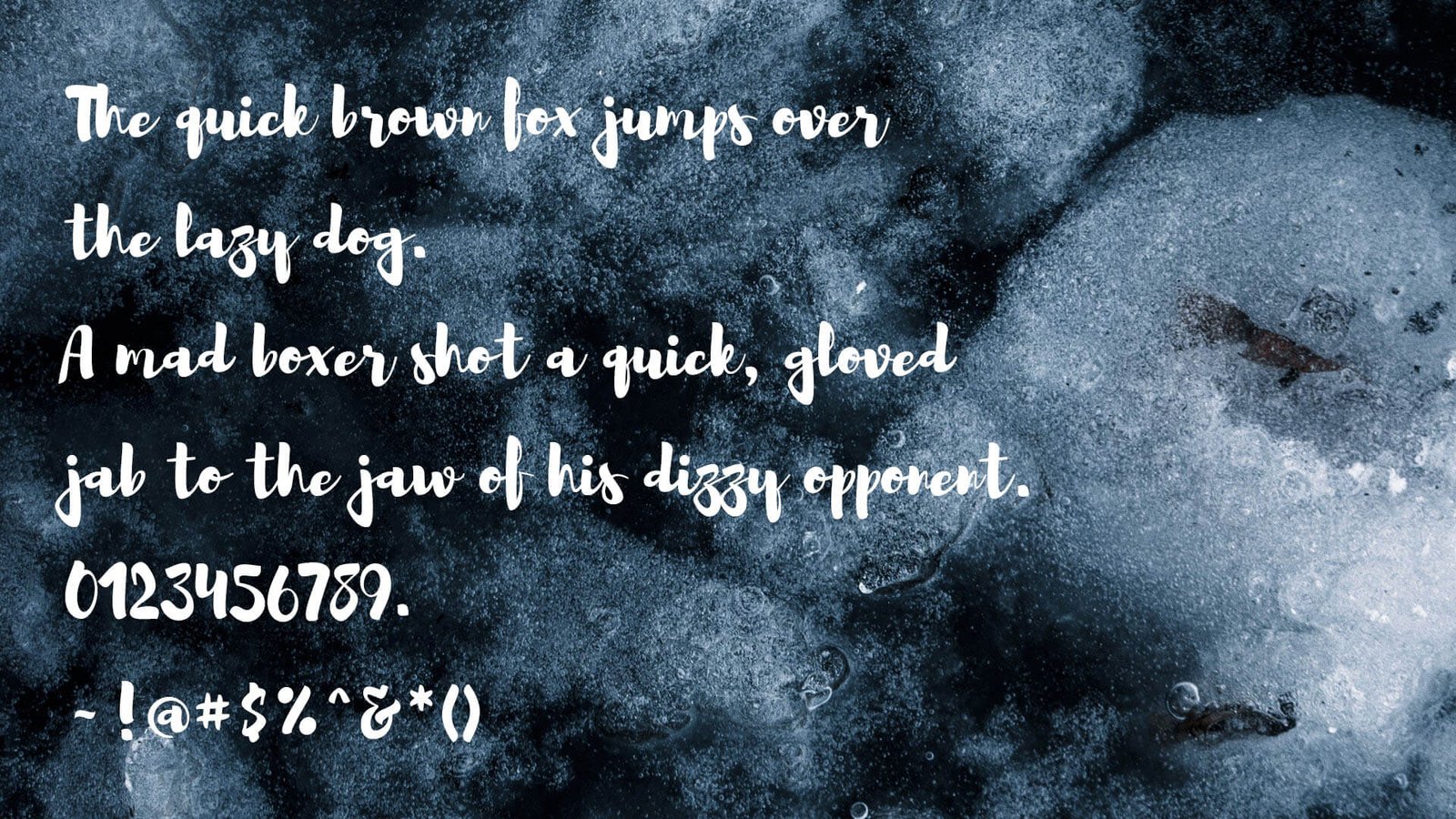
Today we introduce you to a smooth brushed type of font called Brusher Font. Vlad Cristea and Raul Taciu both collectively designed this excellent font. This font was released in 2015. This font lies in the script typeface category.
This classic font is a bold and stylish brush-lettered font. It has smooth lines and corners. This font has a quality design that attracts top designers around the world.
It contains a huge variety of glyphs and characters including uppercase, lowercase, punctuation, stylistic alternates, etc.